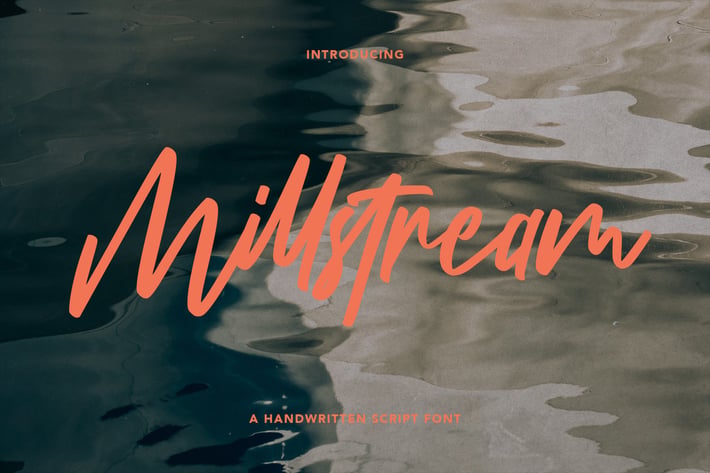
Millstream Handwritten Script Font
Give your designs an authentic handcrafted feel. Millstream Handwritten Script Font is perfectly suited to logo, stationery, branding, typography quotes, magazine or book cover, website header, clothing, branding, packaging design, restaurant and more.